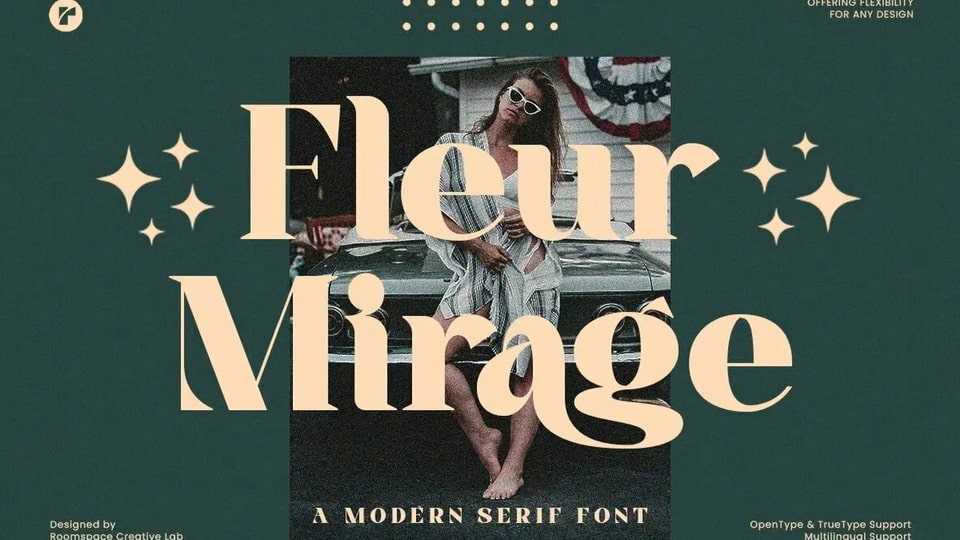
Download Fleur Mirage font, a stunning serif typeface that perfectly blends retro charm with modern elegance. Designed to elevate your creative projects, this versatile typeface offers a classy and stylish appeal.